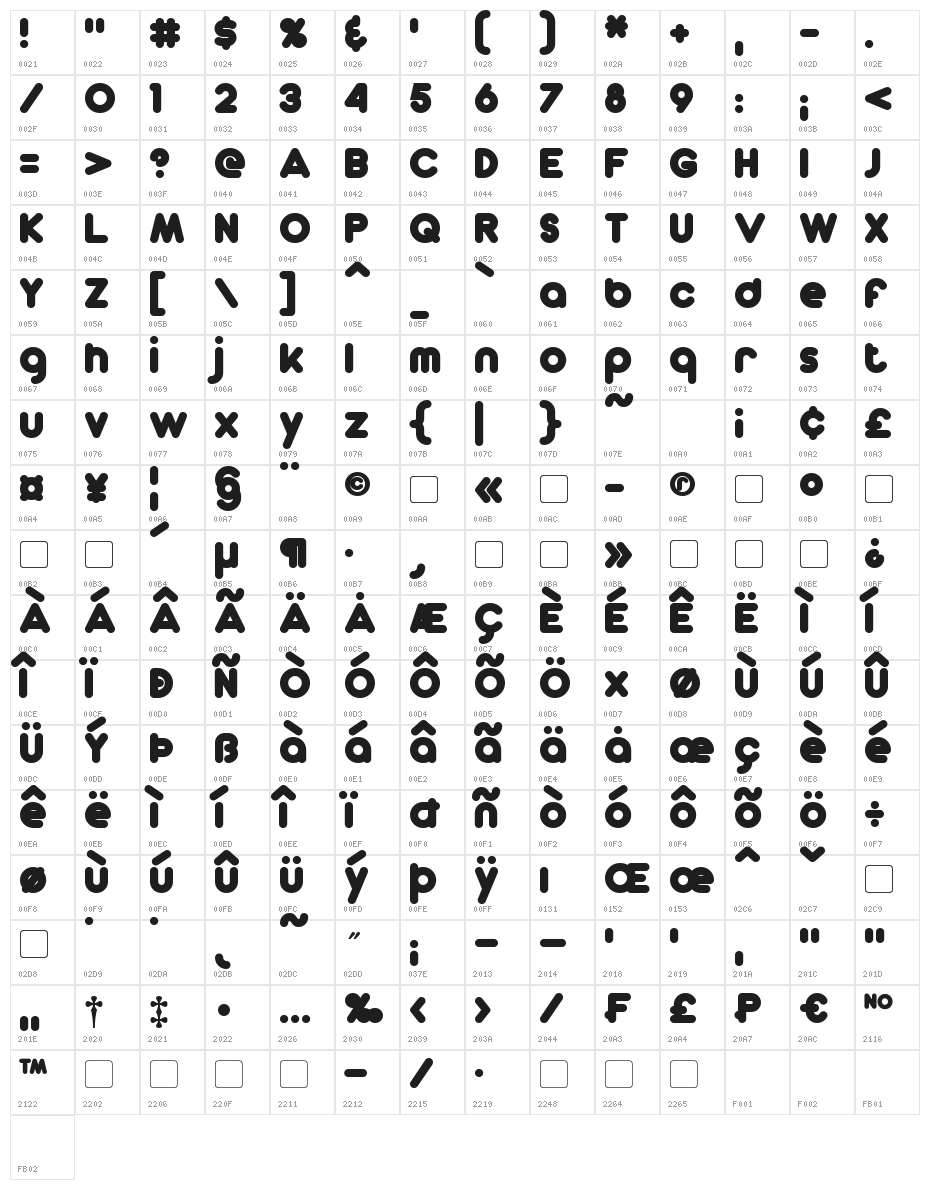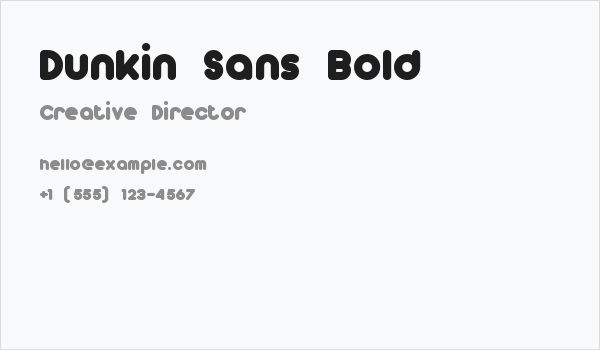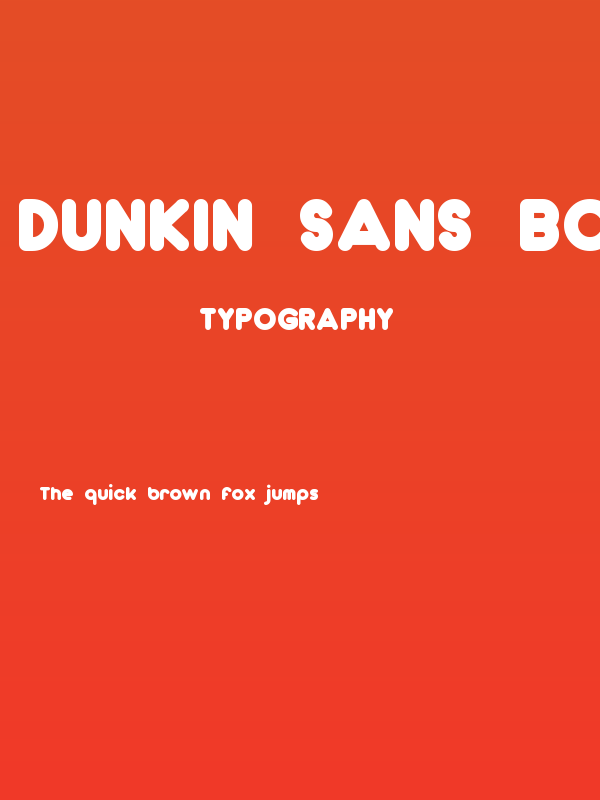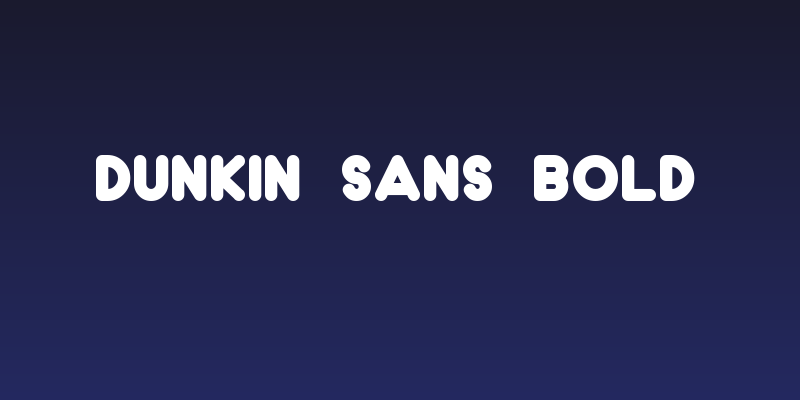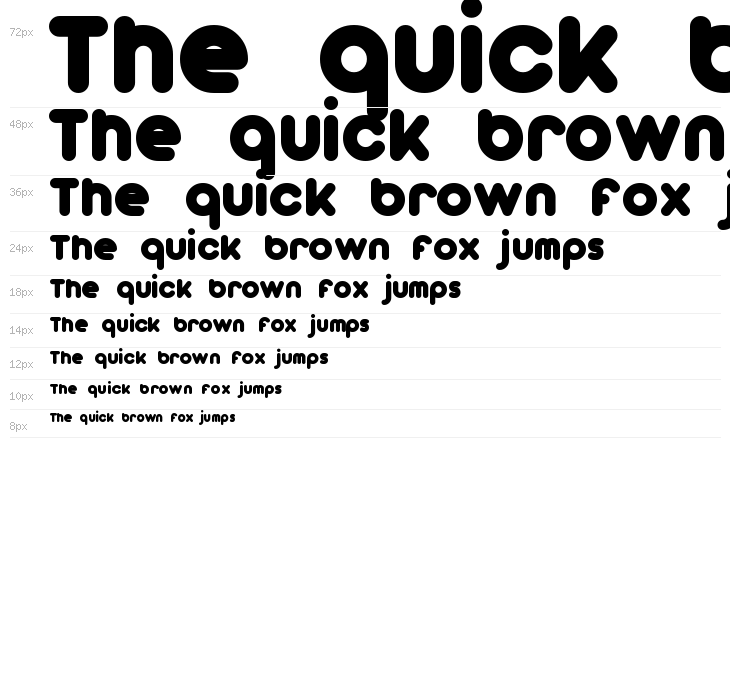
Dunkin Sans Bold Font
Dunkin Sans Bold Description
This font features a bold and rounded sans-serif style, characterized by its thick, uniform strokes and playful, approachable appearance. The letters are evenly spaced with a consistent weight, giving it a modern and friendly look. The rounded edges and lack of sharp angles contribute to its soft and inviting aesthetic, making it suitable for a variety of design applications. The numerals and special characters maintain the same boldness and rounded form, ensuring a cohesive look across all text elements. This font is ideal for projects that require a bold statement while maintaining a casual and approachable feel.
| Proposed Projects | Ideal for branding, packaging, children's books, and playful advertising campaigns. |